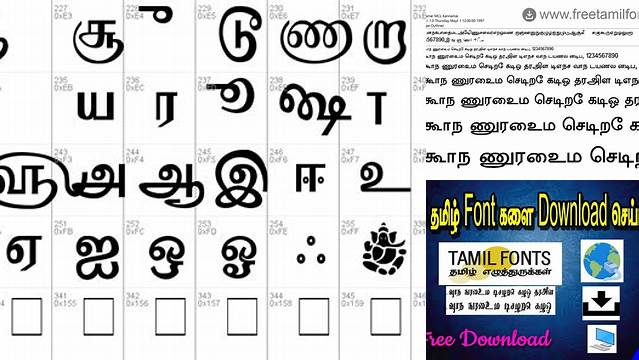
Tamil Fonts: A Deep Dive
Before we jump into the downloading part, let's understand what makes Tamil fonts so special. The Tamil script, with its beautiful curves and unique characters, has a rich history and cultural significance. A good Tamil font not only renders the script accurately but also captures its aesthetic essence. When choosing a Tamil font, consider its readability, style, and suitability for your specific purpose. A decorative font might be perfect for a poster, while a clean and simple font would be better for body text in a document.
Exploring Different Styles of Tamil Fonts
The world of Tamil fonts is incredibly diverse, with styles ranging from traditional to modern, elegant to playful. Experiment with different styles to find the perfect font for your project. Some popular categories include:
Serif Tamil Fonts
Serif Tamil fonts are characterized by small decorative strokes (serifs) at the end of each character. They often convey a sense of formality, tradition, and authority. Serif fonts are a good choice for body text in books, newspapers, and magazines, as they are generally easy to read. When selecting serif Tamil fonts, pay attention to the weight and contrast. A heavier weight can make the font appear bolder and more prominent, while higher contrast can improve readability.
Sans-Serif Tamil Fonts
Sans-serif Tamil fonts lack the decorative serifs found in serif fonts. They have a cleaner, more modern look and feel. Sans-serif fonts are often used for headlines, logos, and websites, as they tend to be more legible on screens. When choosing sans-serif Tamil fonts, consider the x-height (the height of the lowercase letters). A higher x-height can improve readability, especially at smaller sizes.
Decorative Tamil Fonts
Decorative Tamil fonts are designed to be eye-catching and attention-grabbing. They often feature unique shapes, embellishments, and stylistic flourishes. Decorative fonts are best used sparingly, for headings, posters, and other design elements where you want to make a statement. When using decorative Tamil fonts, ensure that they are still legible and don't detract from the overall message.
Handwritten Tamil Fonts
Handwritten Tamil fonts mimic the look of handwriting, adding a personal and informal touch to your designs. They can be used for invitations, greeting cards, and other projects where you want to convey a sense of warmth and authenticity. When selecting handwritten Tamil fonts, consider the legibility and the overall style. A font that is too messy or difficult to read can be frustrating for viewers.
The Impact of Tamil Fonts on Cultural Identity
Tamil fonts play a significant role in preserving and promoting Tamil cultural identity. By using Tamil fonts in your designs, you can help to celebrate and showcase the beauty of the Tamil language and culture.